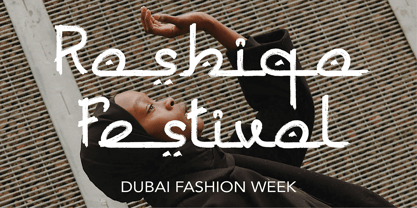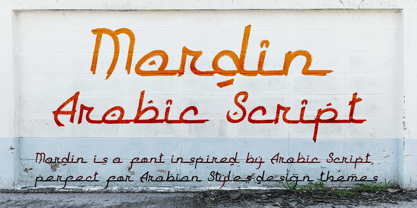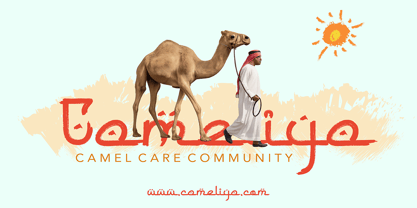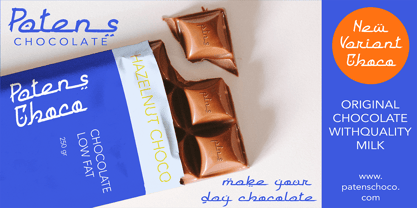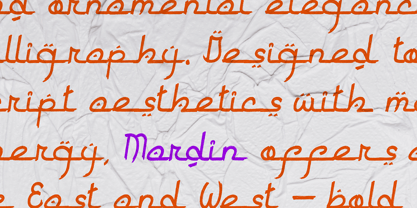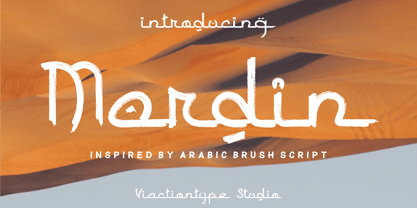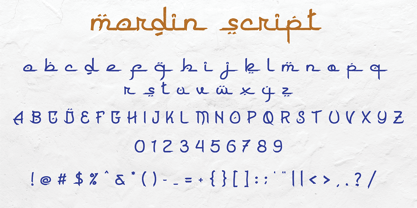
Mardin
The Mardin Font Family was designed by Lukman Hidayat and published by Viaction Type.Co. Mardin contains 2 styles and family package options. More about this family
Mardin is a modern brush script font inspired by the fluid elegance of Arabic calligraphy. Crafted with expressive strokes and graceful curves, this typeface brings a unique blend of Middle Eastern aesthetics and contemporary hand-lettering to your design toolbox.
Perfect for branding, packaging, headlines, invitations, and more, Mardin features two styles — Regular and Oblique — allowing for added versatility and dynamic composition. Whether you’re designing for Ramadan promotions, luxury product labels, or cultural-themed projects, Mardin adds authenticity and artistic flair.
Mardin is provided offers multilingual support, making it a practical and beautiful choice for global creatives. Its organic brush texture and stylistic rhythm emulate the soul of traditional Arabic script while staying readable and elegant in the Latin alphabet.
Features:
• Inspired by Arabic calligraphy
• Brush script style with natural strokes
• Two styles: Regular & Oblique
• Supports multilingual characters
• Ideal for branding, packaging, logos, and cultural design
Bring the spirit of Arabic calligraphy into modern design — with the expressive brushstrokes of Mardin.